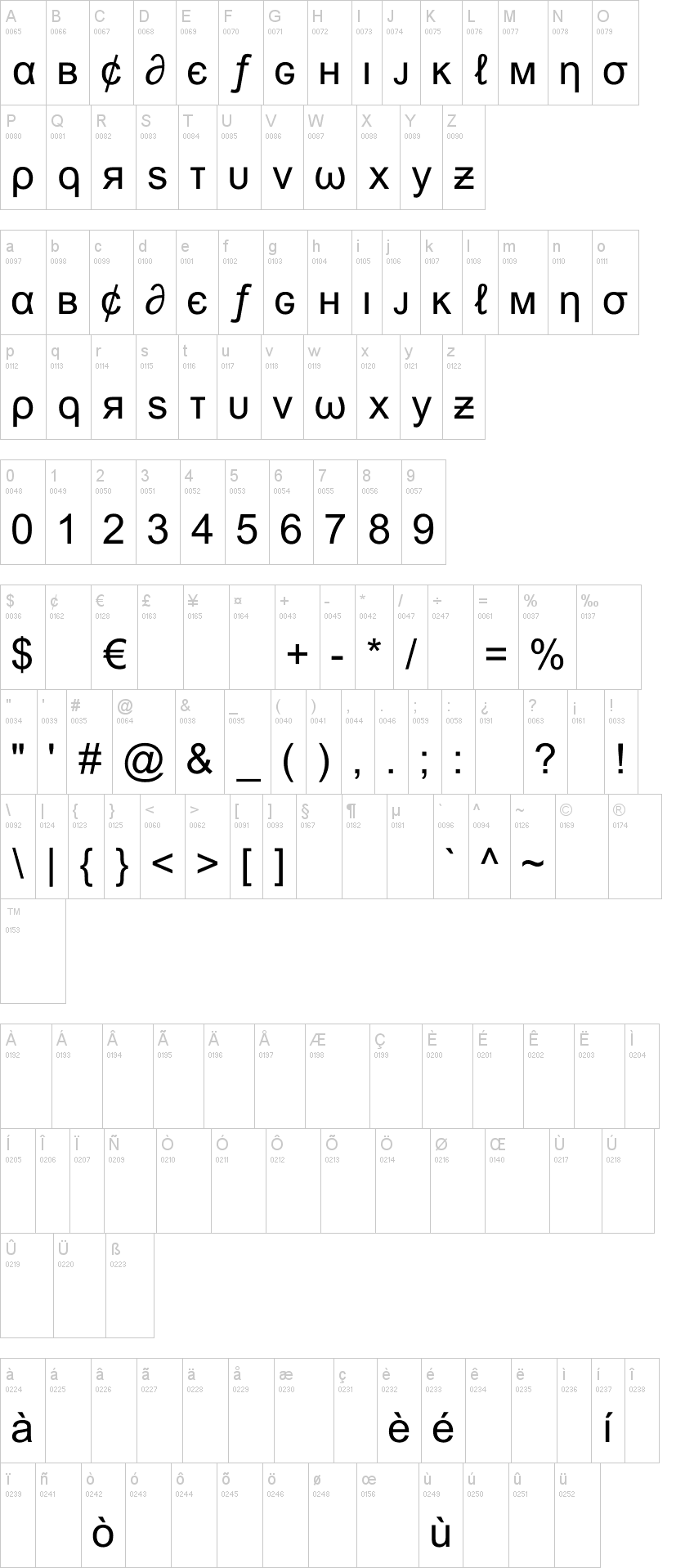
Шрифт Msn Weird
I created this font myself, but the various letters and symbols ecc. belong to Arial font. Pratically I took some various letters & symbols and I joined'em in one font, so I created the font myself anyway.